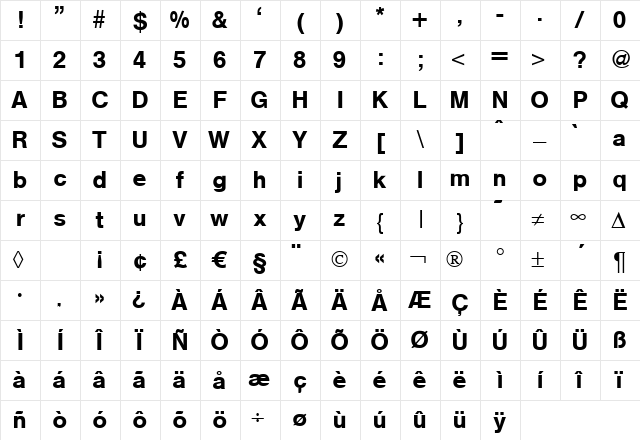
HegelMedium Regular
Design Context for HegelMedium
HegelMedium is a composed and adaptable typeface that performs quietly and consistently across a wide range of design contexts.
Pro Tip: Use HegelMedium in both headline and body roles to test its range before committing to a single application.